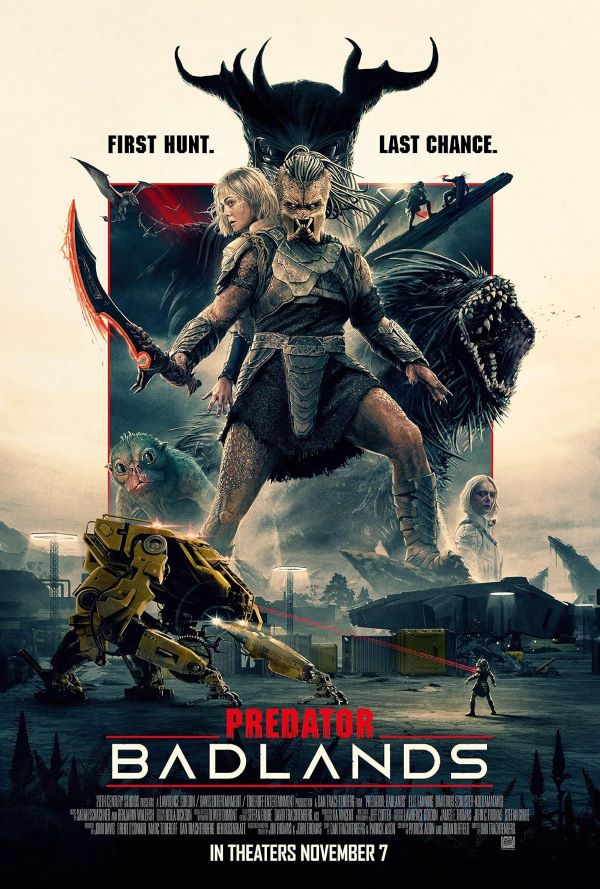
Predator Badlands Font
What Font Does Predator Badlands Use?
The Predator Badlands Font has no confirmed official typeface, and the exact font used in the project remains unidentified. However, several free alternative fonts closely replicate the rugged, sharp-edged sci-fi aesthetic associated with the Predator Badlands branding. These similar styles capture the aggressive, survival-driven tone of the series and work well for fan art, posters, and themed design projects where a matching look is needed.
About Predator: Badlands
Predator: Badlands expands the universe of the iconic Predator franchise, known for its blend of sci-fi action, survival horror, and extraterrestrial combat. Set in hostile environments where humans come face-to-face with elite alien hunters, the story continues the legacy of high-intensity conflict, primal weaponry, and survival-focused warfare. The Badlands iteration maintains the franchise’s gritty atmosphere while delivering new environments, threats, and escalating stakes.